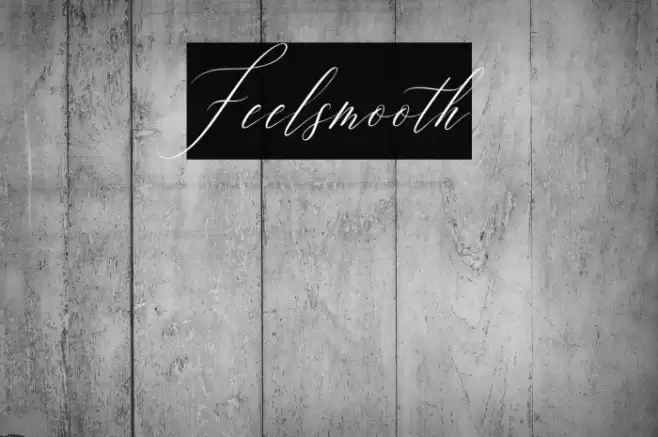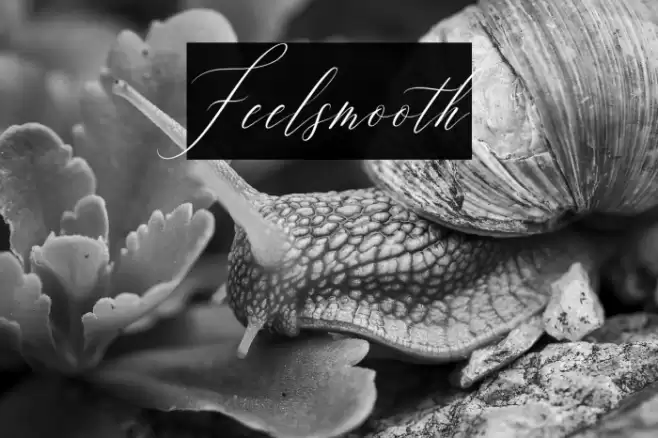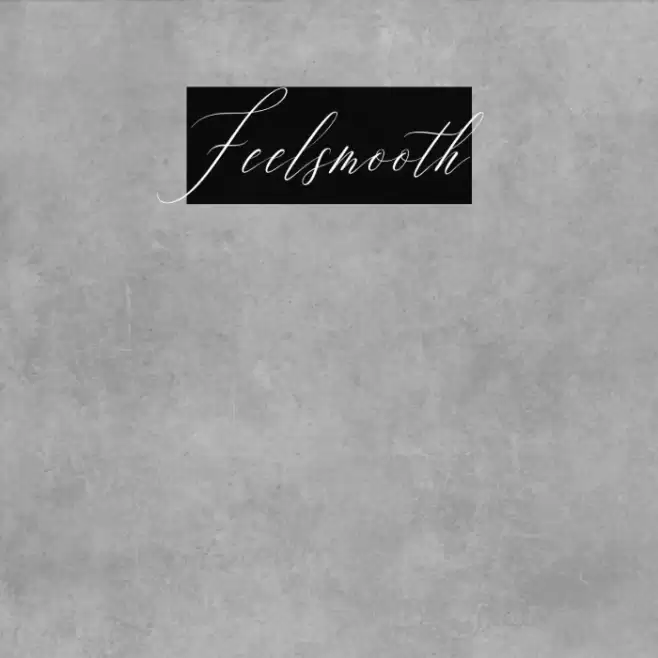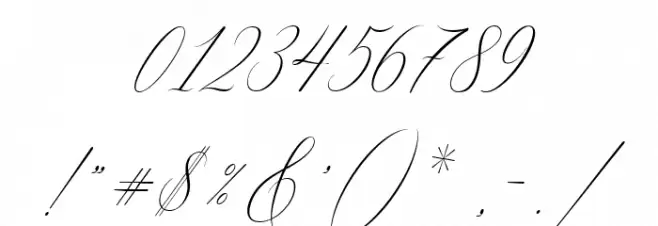
Feelsmooth Font
Feelsmooth Description
This elegant script font features flowing, interconnected strokes that convey a sense of sophistication and grace. The uppercase letters are tall and slender, with delicate curves and loops that add a touch of flair. The lowercase letters maintain a consistent flow, enhancing readability while preserving the font's artistic style. Numbers and special characters are designed with the same attention to detail, ensuring a cohesive look across all text elements. This font's high contrast between thick and thin strokes adds to its refined appearance, making it suitable for formal and decorative applications.
An elegant script font with flowing, interconnected strokes and high contrast from Regular fonts.
- Proposed Projects: Ideal for wedding invitations, elegant branding, luxury product packaging, and formal event programs.
- Overall Style: Elegant, Sophisticated
- Use Case: Headlines, Invitations, Branding